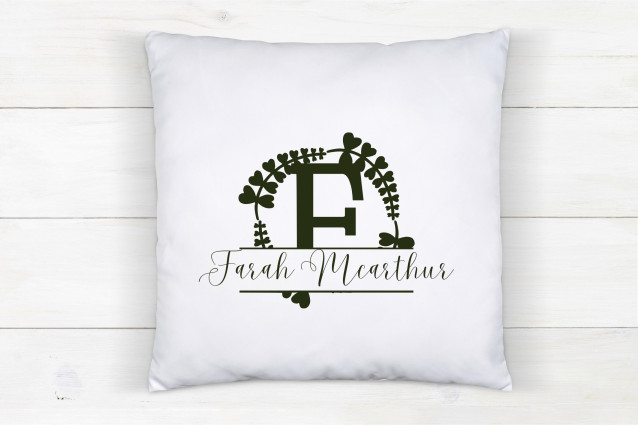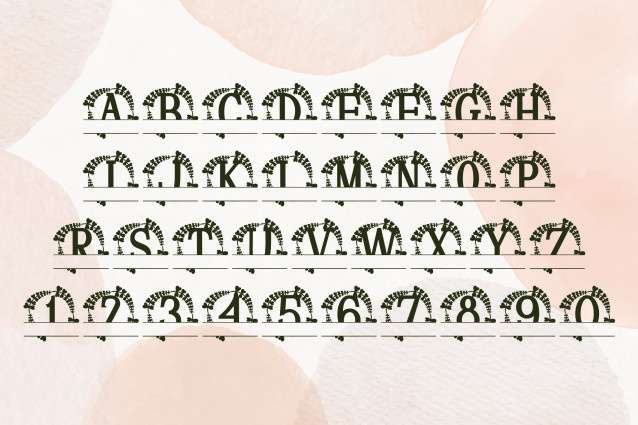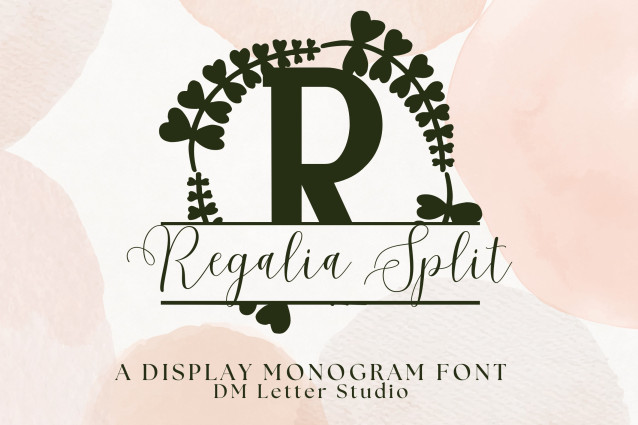
Regalia Split Monogram Font
Regalia Split Monogram Font is a regal serif split font designed to combine elegance with personalization. Each uppercase letter is styled with refined detailing and divided with a clean horizontal split, giving you the flexibility to insert names, dates, or custom words. With its luxurious aesthetic and practical split design, Regalia Split Monogram is perfect for weddings, boutique logos, luxury packaging, event signage, and personalized gifts.
This font balances sophistication and versatility. The serif foundation provides strength and clarity, while the ornamental touches add a refined, royal feel. The split layout makes it easy to adapt for Cricut/Silhouette crafts, stationery, keepsakes, and high-end branding. Whether you’re designing an invitation suite, a boutique logo, or custom home décor, Regalia Split Monogram brings prestige and elegance to every project.
With its majestic presence, Regalia Split Monogram is the ideal typeface for creatives who want their work to convey refinement and exclusivity. It adapts effortlessly to both digital and print projects, offering timeless appeal with customizable functionality.